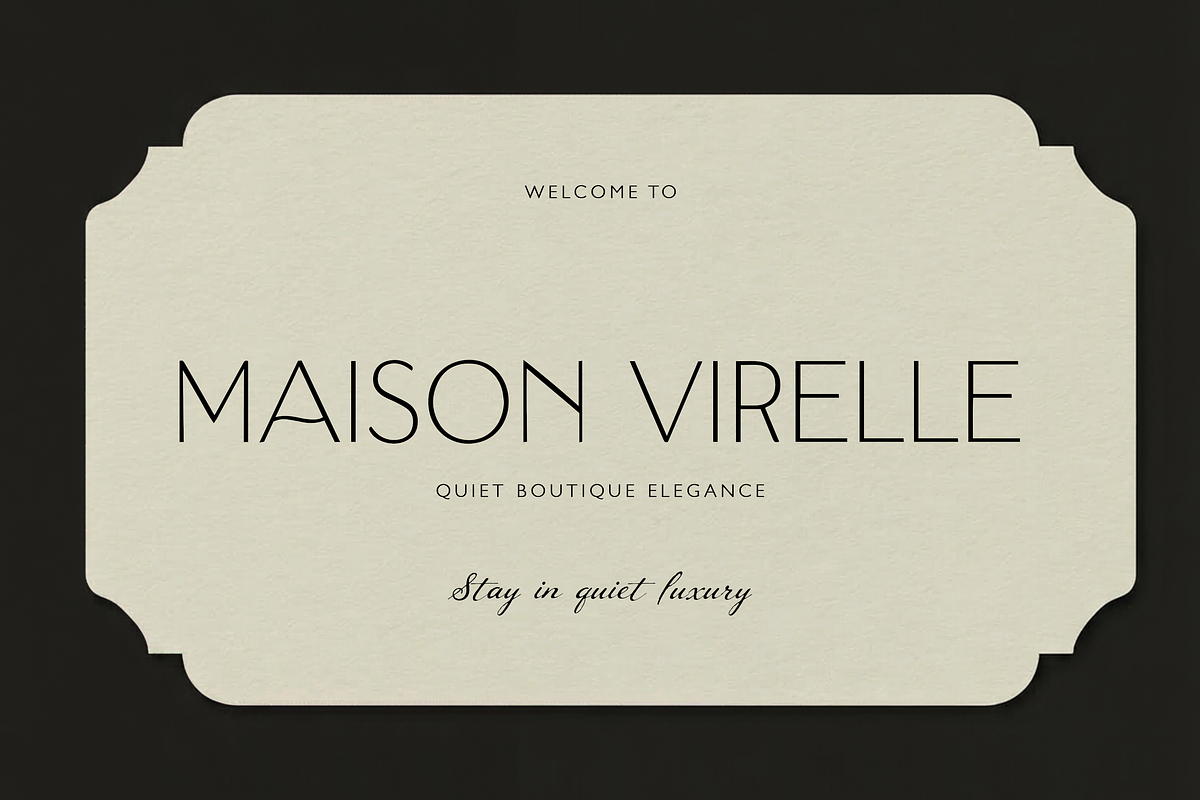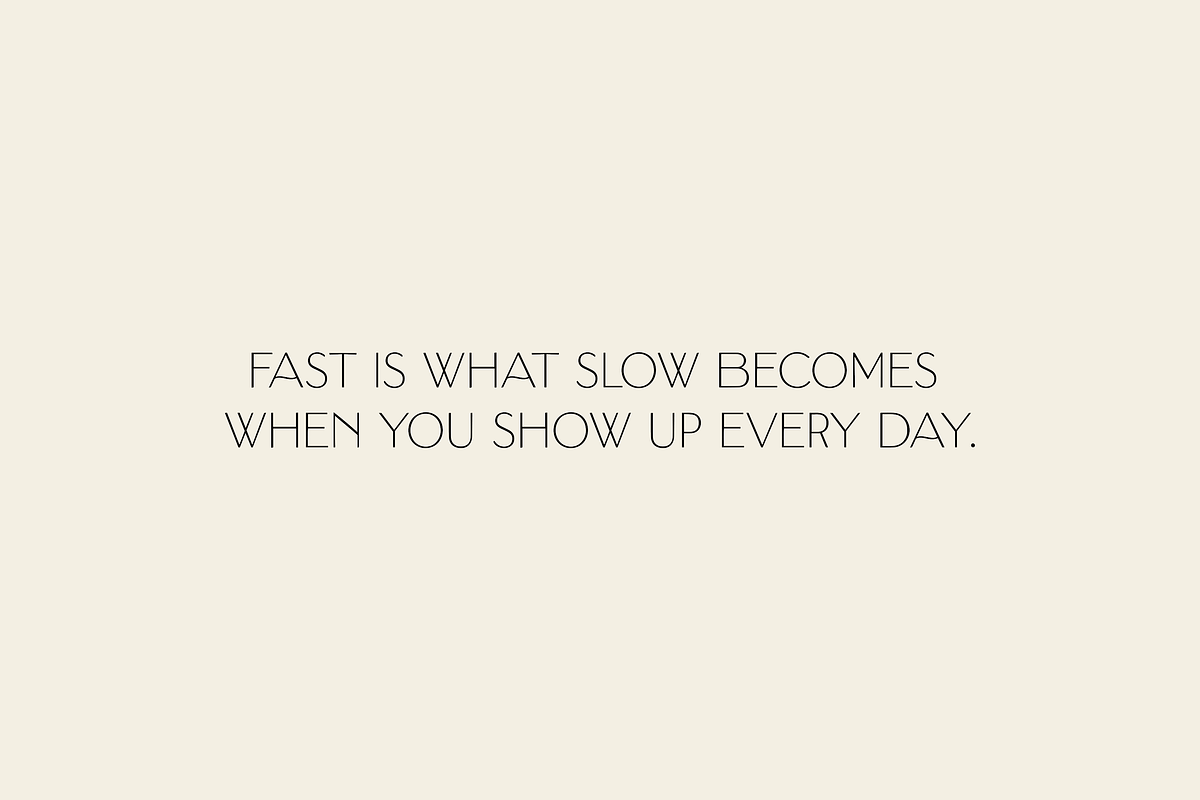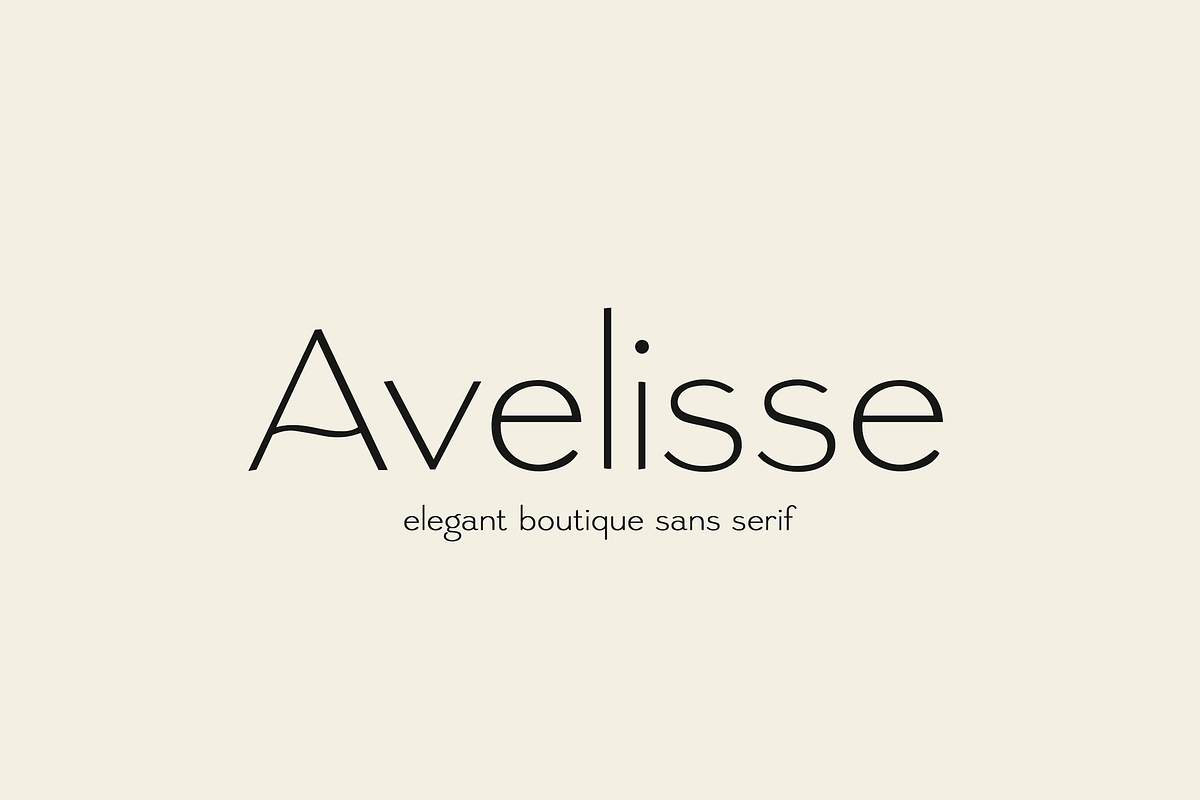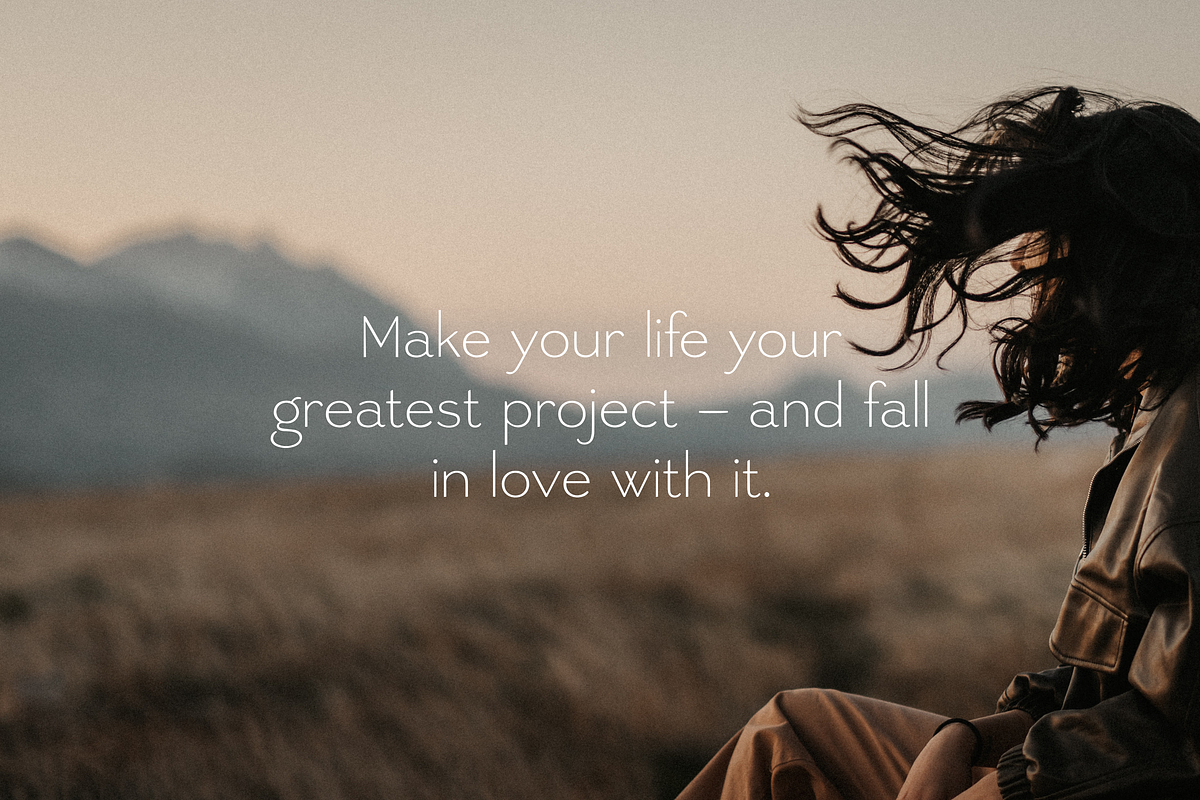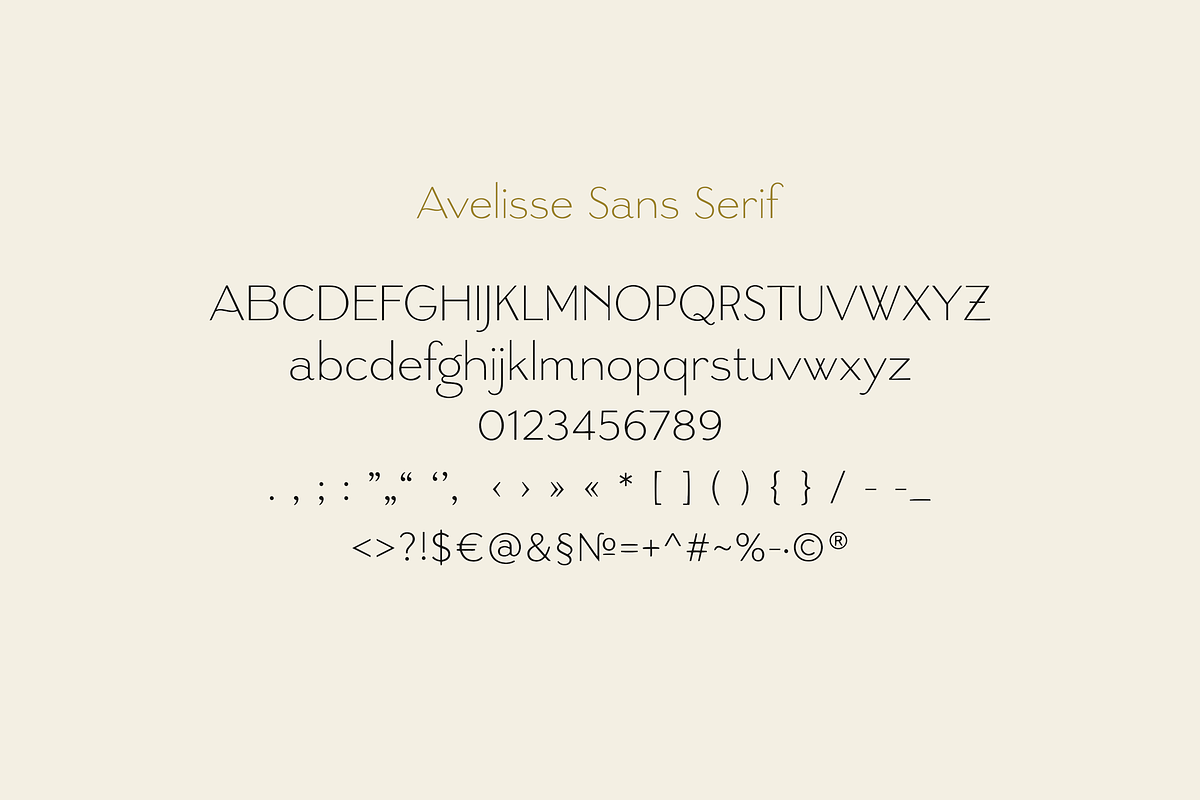
Avelisse Elegant Boutique Sans
Avelisse is an elegant boutique sans serif font with thin lines, modern curves, and a refined fashion-inspired style for branding, logos, packaging, invitations, and editorial design.